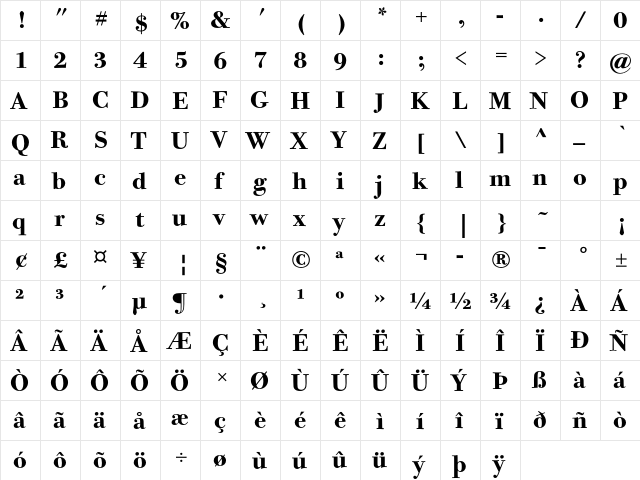
Bodoni Twelve ITC Std Bold
| Designer | Janice Fishman, Holly Goldsmith, Jim Parkinson, Sumner Stone |
Design Context for Bodoni Twelve ITC Std Typeface
Bodoni Twelve ITC Std offers clean, dependable letterforms without strong stylistic allegiance, making it a practical choice for designers who need flexibility. Its bold stroke weight gives it real presence on the page.
Pro Tip: Use Bodoni Twelve ITC Std in both headline and body roles to test its range before committing to a single application.